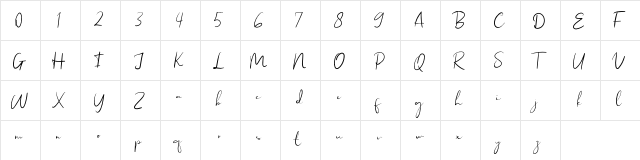
Sweet Yell Yell
| Designer | Muhammad Husni Haikal |
Design Context for Sweet Yell Typeface
Sweet Yell is a composed and adaptable typeface that performs quietly and consistently across a wide range of design contexts.